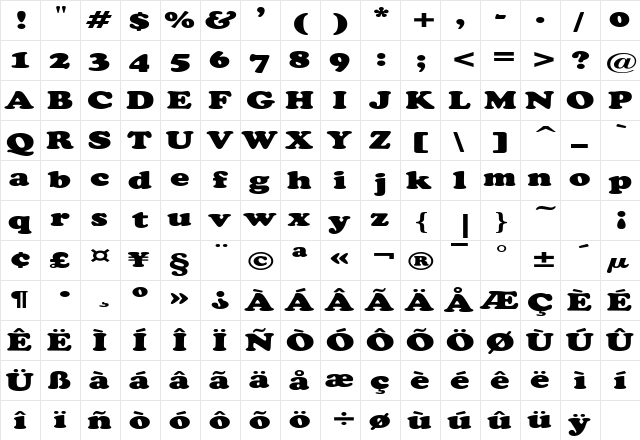
CopperfieldExtended Regular
Design Context for CopperfieldExtended Typeface
CopperfieldExtended takes a measured approach to typography — its balanced proportions and neutral character make it a reliable workhorse for both digital and print work.